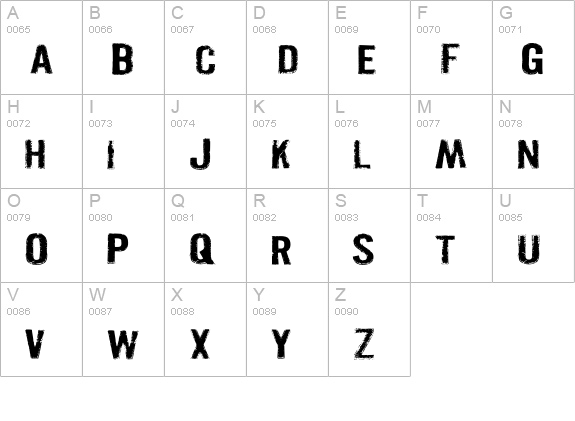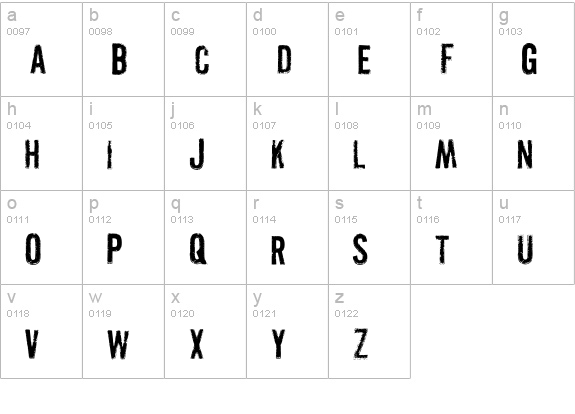
Pistolgrip Font Details
Introducing Pistolgrip Font, a stunning typeface that effortlessly combines vintage style with modern aesthetics. This versatile font is the perfect choice for any design project that requires a touch of elegance and personality. Featuring bold, yet refined letterforms, Pistolgrip Font captures attention with its strong presence and commanding appeal. Each meticulously crafted character showcases a unique blend of sharp angles and smooth curves, creating a harmonious balance that is visually captivating. Pistolgrip Font's wide range of glyphs ensures seamless compatibility with various languages, making it a truly global typeface. Whether you're designing a logo, poster, or website, this font will elevate your project to new heights, adding a touch of sophistication and professionalism. But what makes Pistolgrip Font truly exceptional is the fact that it is available for free. Yes, you read that right! You can easily download this remarkable font without spending a dime at FontsMarket.com. This generous offer allows designers, creatives, and typography enthusiasts alike to access this extraordinary font and bring their visions to life without any barriers. So, why wait? Unleash your creativity and elevate your designs with Pistolgrip Font. Download it today from FontsMarket.com and experience the power of this remarkable typeface firsthand.